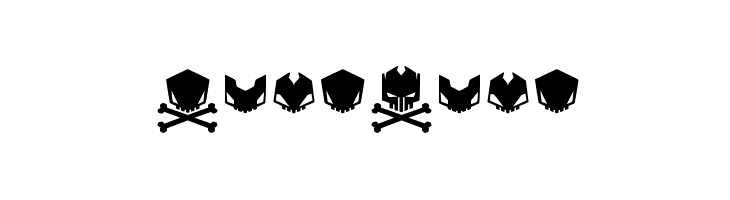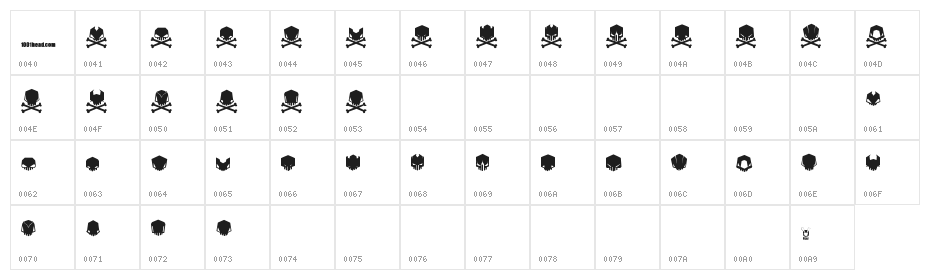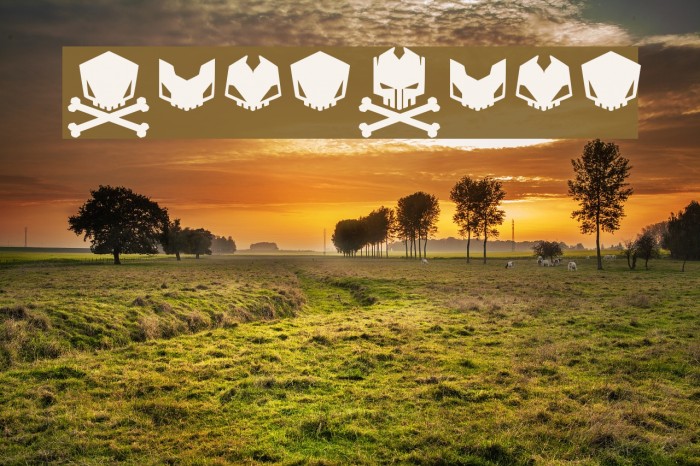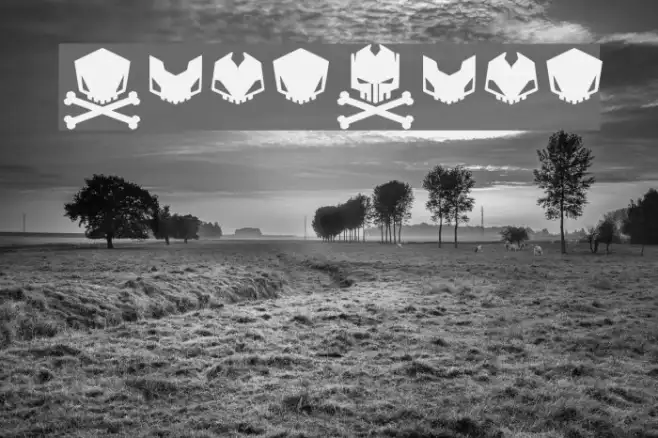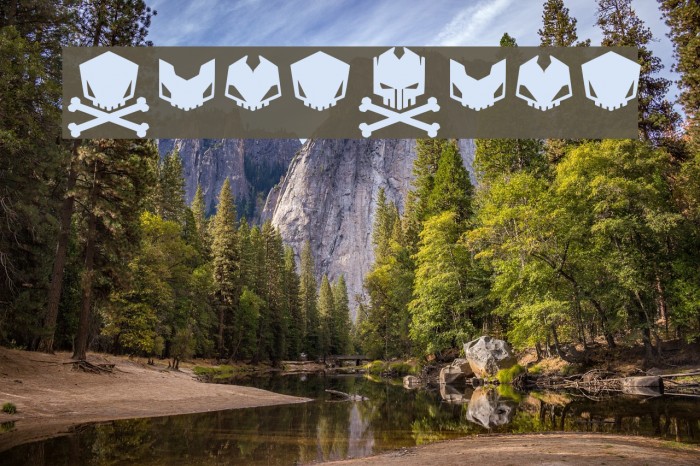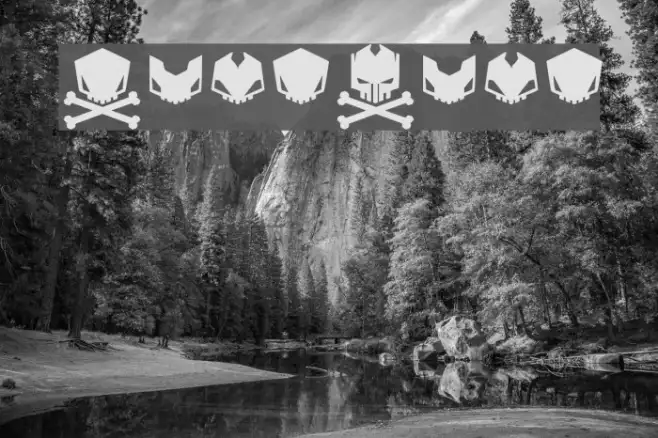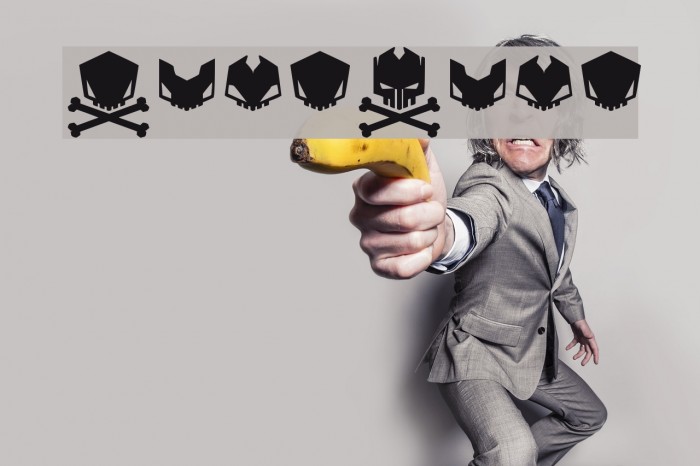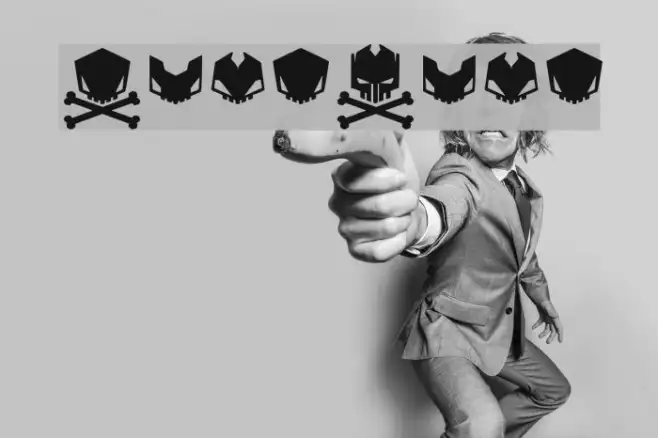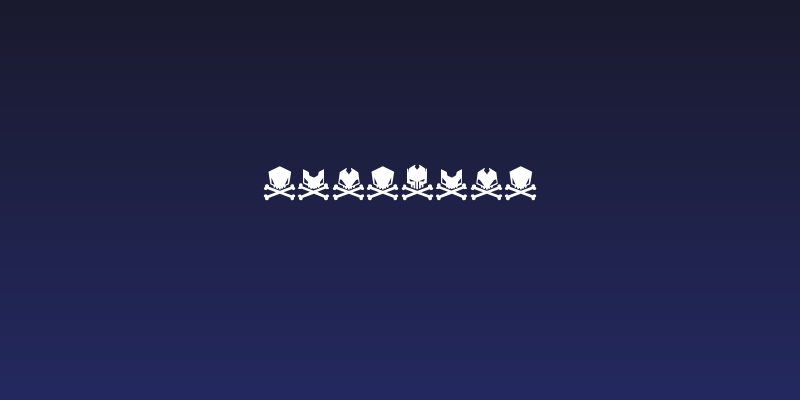
DeadHead Font
DeadHead Description
This font features a unique and bold design, incorporating skull motifs with crossbones for each character. The style is highly decorative and thematic, evoking a sense of edginess and rebellion. Each letter is crafted with a hexagonal base, adding a geometric element to the otherwise organic skull shapes. The characters are consistent in their boldness, with thick strokes and a uniform weight across the set. This font is particularly striking and would stand out in any design project that aims to convey a strong, daring message.
| Use Case | Logos, Posters, Themed Events |
| Proposed Projects | Ideal for Halloween-themed designs, rock band logos, edgy apparel branding, or any project requiring a rebellious aesthetic. |